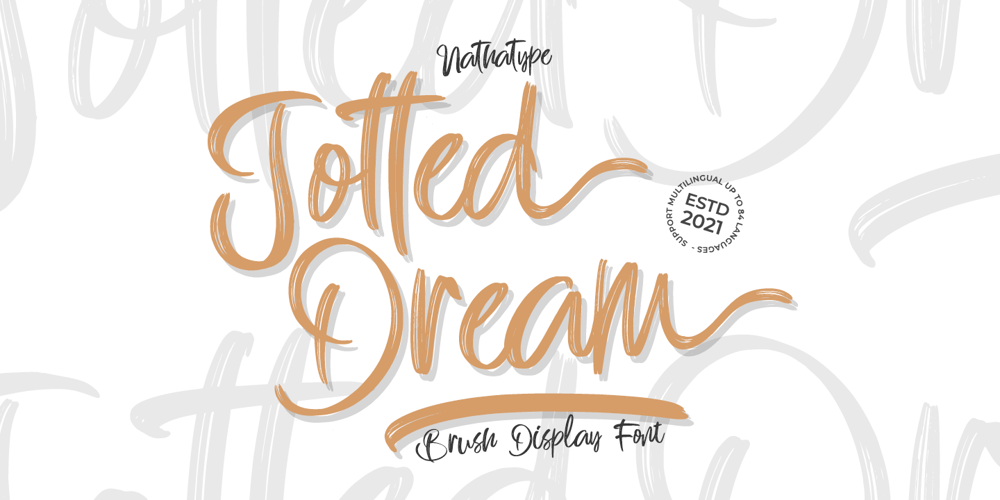
Jotted Dream Font Family was designed by Donis Miftahudin and published by Nathatype. Jotted Dream contains 1 styles and family package options. Wanna enhance your branding? Searching for a elegant and stylish font? If you need to create gorgeous logo for your business, work on a poster for an event, or whatever your project may be-then we’ve got what you want.Jotted Dream – A Brush Display FontJotted Dream is a display brush that is combined with elegant brush style. Every swash, stroke, and curve was created to entice happiness and elegance. Great choice for your logo, book cover, poster, t-shirt, branding, and advertisement needs.Our font always includes Multilingual Support to make your branding reach a global audience.Features: Ligatures Stylistic Set Swahes PUA Encoded Numerals and Punctuation Thank you for downloading premium fonts from Nathatype